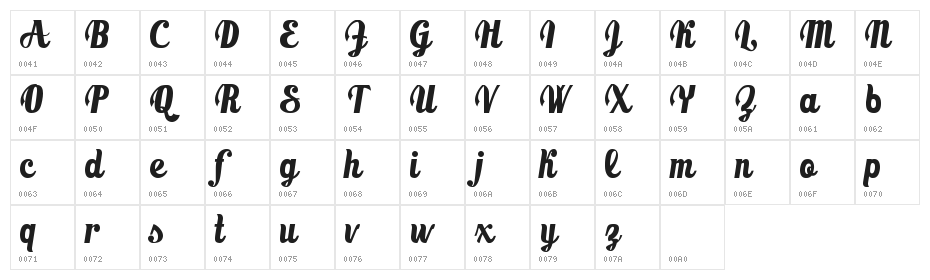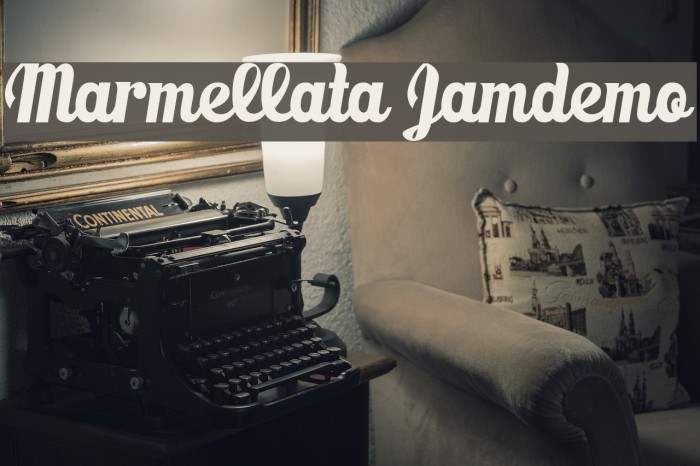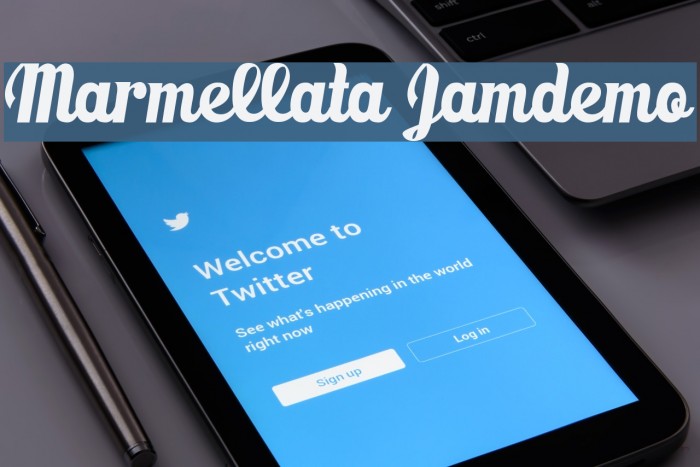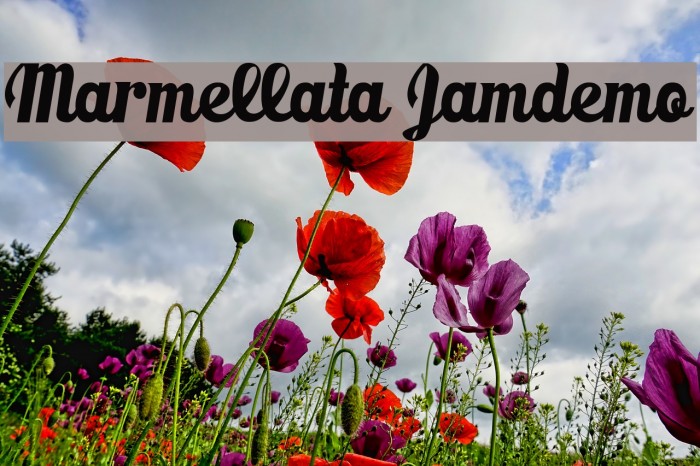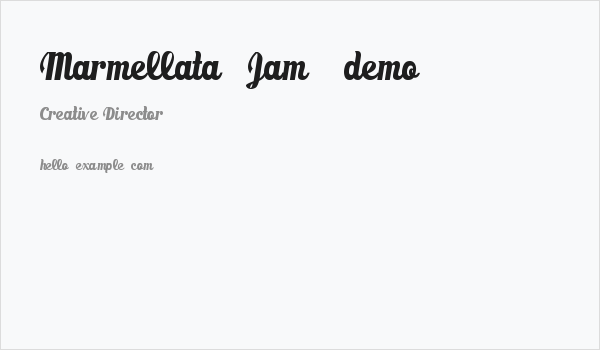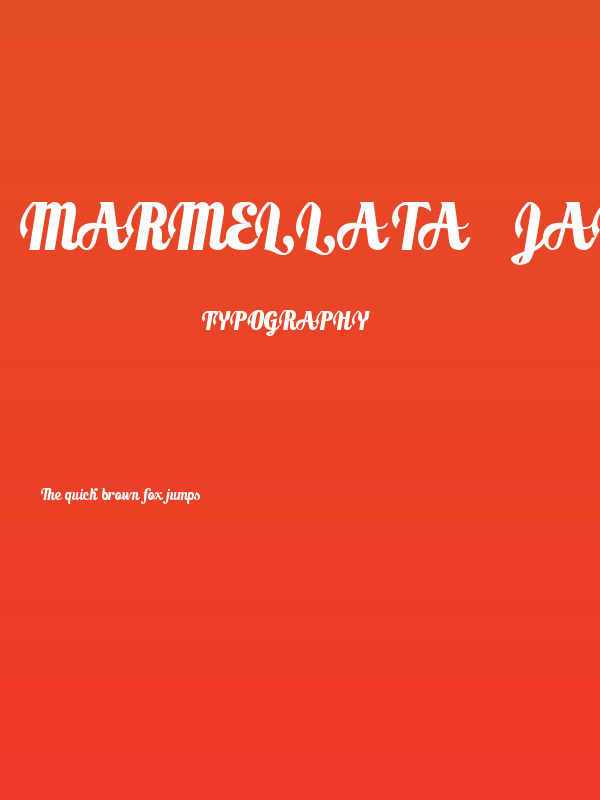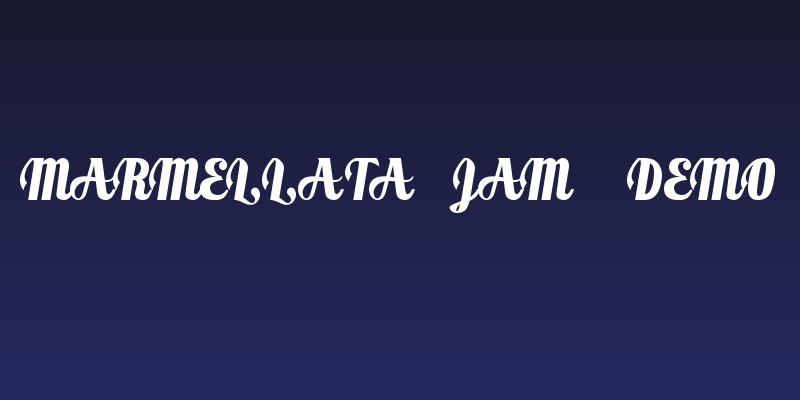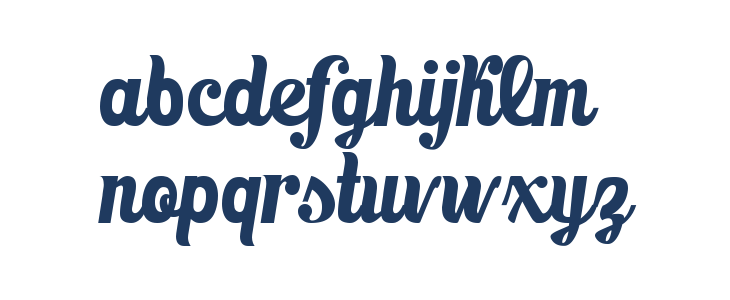
Marmellata [Jam]_demo Font
Marmellata [Jam]_demo Description
This font features a bold and dynamic script style with a playful and energetic character. The letters are interconnected with smooth, flowing curves and a slight slant, giving it a sense of movement and liveliness. The uppercase letters are particularly striking, with exaggerated loops and swashes that add a decorative flair. The lowercase letters maintain a consistent style, with rounded forms and a harmonious balance between thick and thin strokes. This font is well-suited for designs that require a touch of elegance and personality, making it ideal for creative projects.
| Proposed Projects | Ideal for branding, invitations, packaging, and creative design projects. |